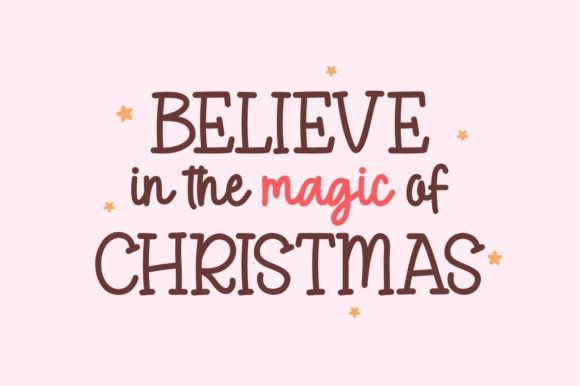
Super Season Font
Super Season is a playful display serif font that brings joy to your design projects. With its cheerful and whimsical style, this font adds a touch of fun to any text. Perfect for creating eye-catching headlines, invitations, or any project that needs a lighthearted vibe. Let Super Season infuse your designs with a burst of excitement and creativity.